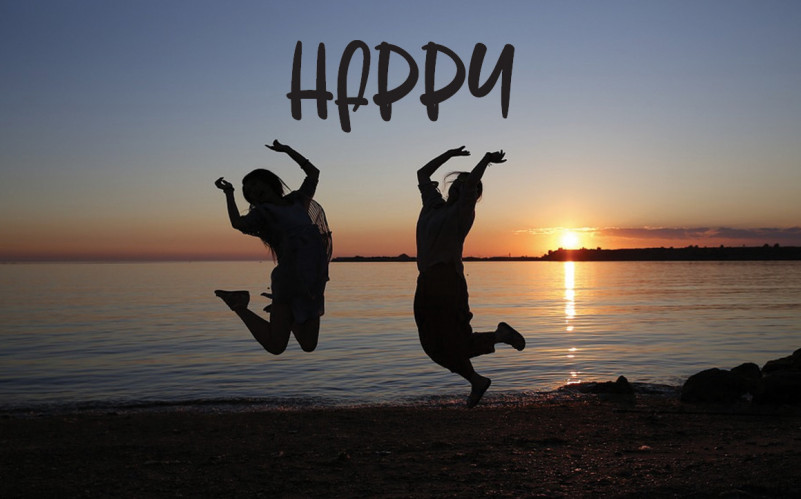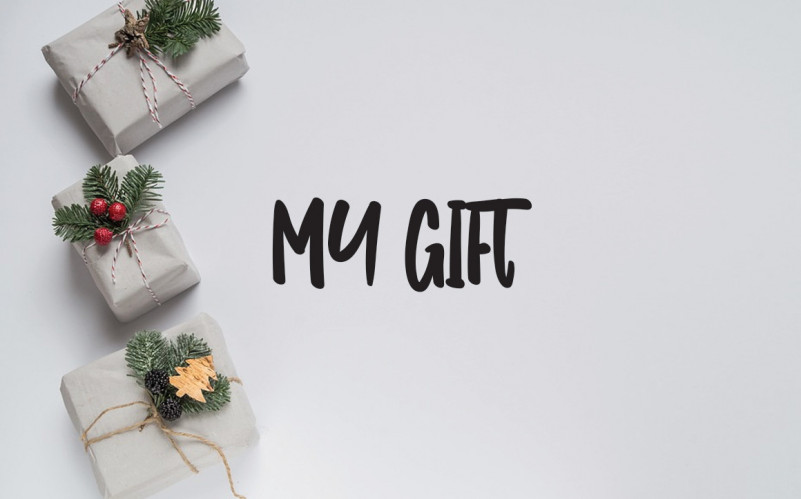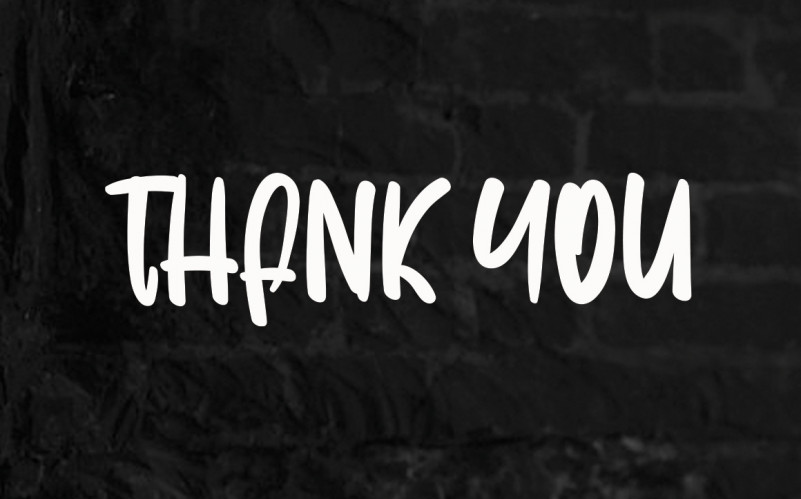
Rainbow Script Font is a relaxed, quirky and friendly handwritten font. Whether you use it for cartoon related designs, children games or just any creation that requires a lovely touch, this font will be an amazing choice.my farmhouse font for Personal Use Only.